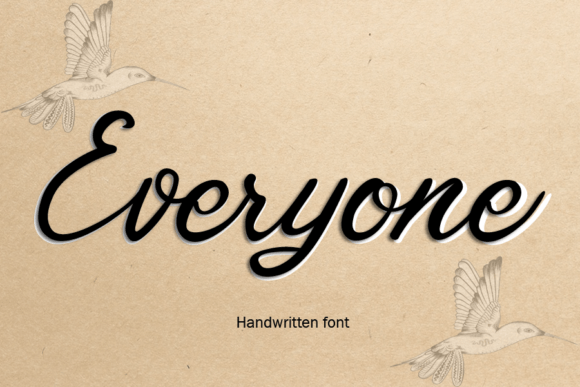
Journey into the world of Everyone Font, a script font family that captures the essence of elegance and sophistication. Crafted by the renowned Alfa studio, Everyone Font is a symphony of flowing lines and graceful curves, designed to elevate your creative projects to new heights. With its timeless style and incredibly distinct appeal, Everyone Font is the perfect choice for those seeking to add a touch of magic to their designs.
Immerse yourself in the beauty of Everyone Font's intricate details. Each letter is meticulously crafted to exude a sense of charm and personality, making your words come alive on the page. Whether you're creating stunning logos, eye-catching posters, or heartfelt invitations, Everyone Font will lend its timeless elegance to your work.
Transport your audience to a realm of enchantment with Everyone Font's captivating style. Its delicate strokes and sweeping curves create a visually appealing aesthetic that will leave a lasting impression. From wedding invitations that radiate romance to business cards that exude professionalism, Everyone Font seamlessly adapts to any project, adding a touch of sophistication that commands attention.
Unleash your creativity and let Everyone Font be your muse. Its versatility knows no bounds, allowing you to explore a myriad of design possibilities. Experiment with different colors, sizes, and arrangements to create unique and captivating designs that reflect your personal style. Whether you're a seasoned designer or just starting your creative journey, Everyone Font is the perfect companion for your artistic endeavors.
With Everyone Font, you'll discover a world of endless possibilities. Its timeless beauty and distinct charm will add a touch of elegance to any project. Embrace the power of Everyone Font and embark on a creative journey that will leave you feeling inspired and fulfilled. Dive into the world of Everyone Font today and experience the magic of typography at its finest.